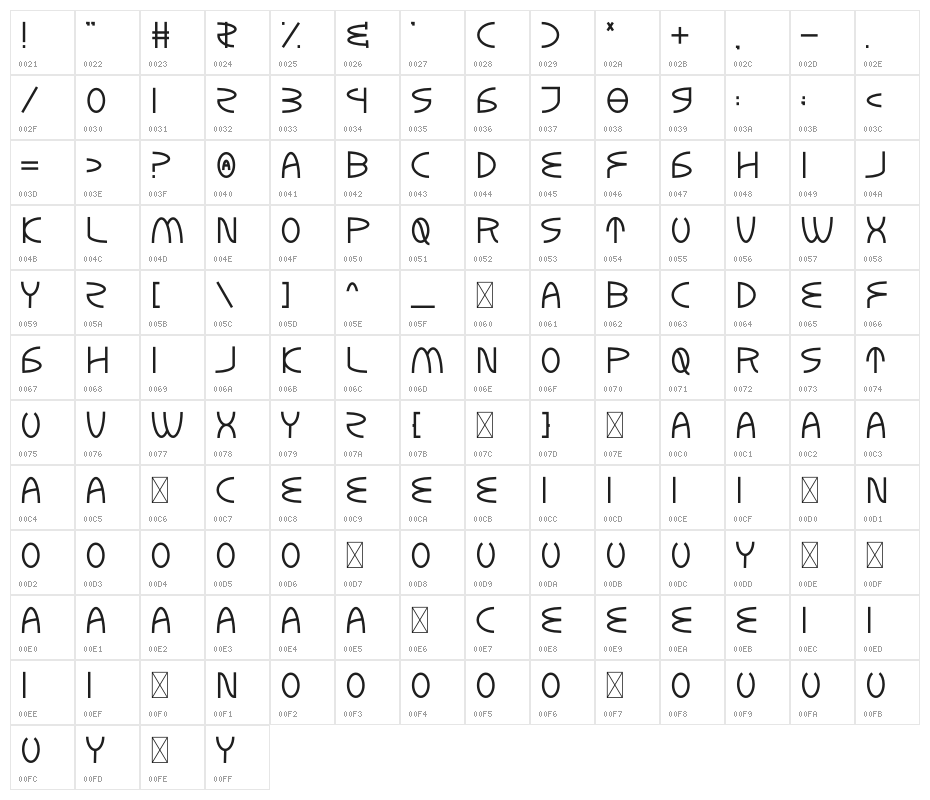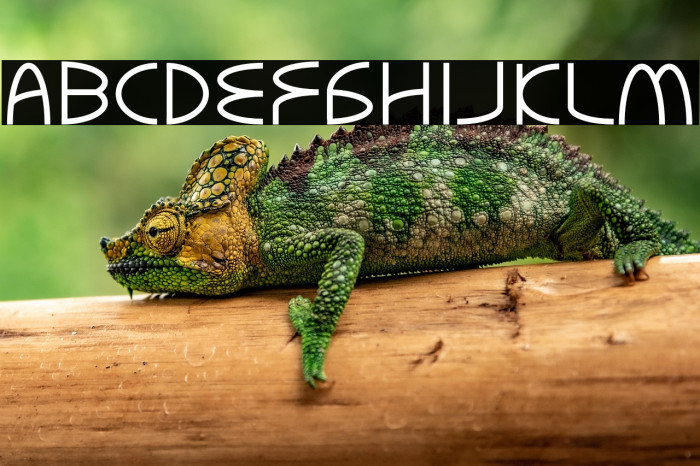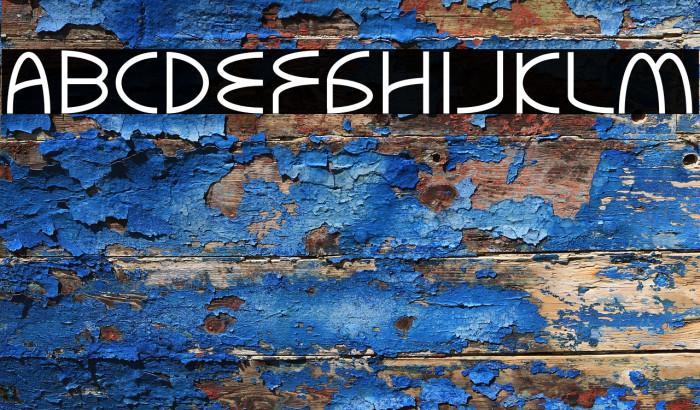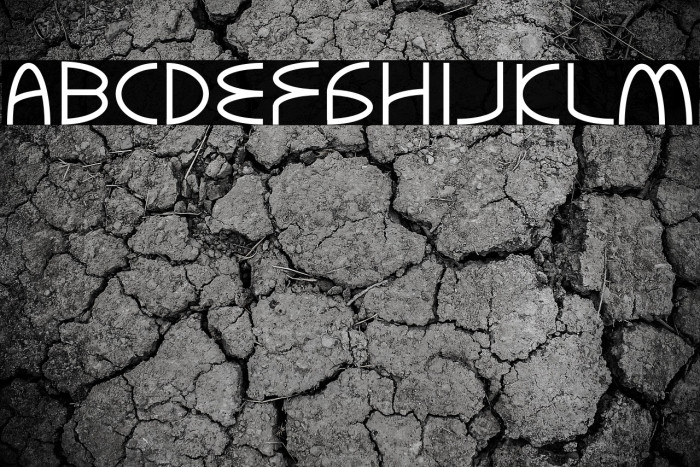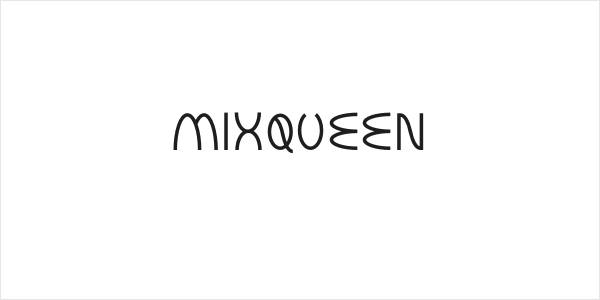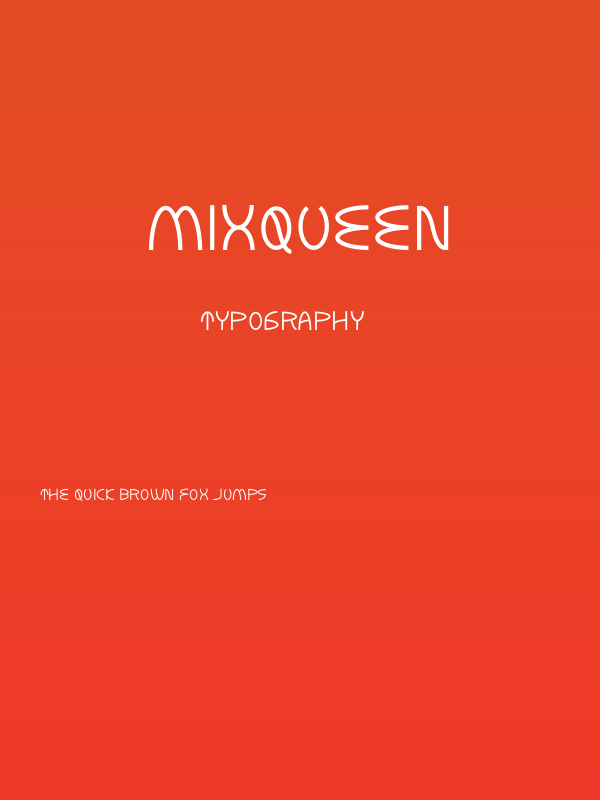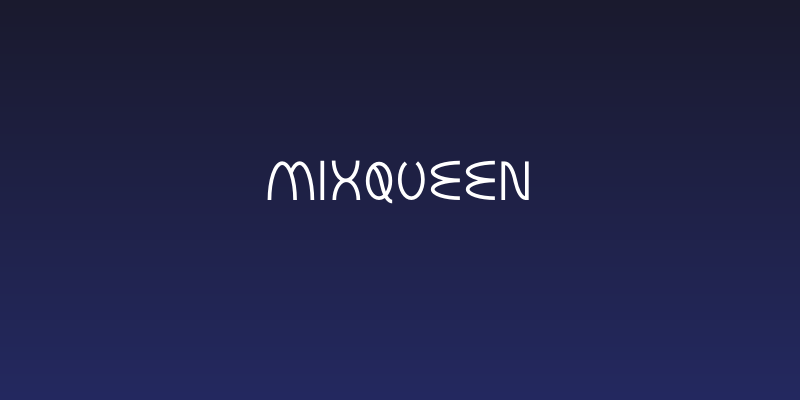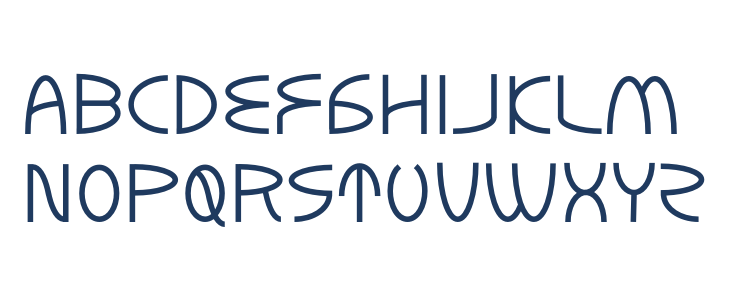
Mixqueen Font
Mixqueen Description
This font features a unique and modern design with a futuristic flair. The characters are crafted with a distinct curvature, giving them a sleek and dynamic appearance. The uppercase letters exhibit a consistent height and width, while the lowercase letters maintain a similar style, ensuring uniformity across the typeface. The numerals are designed to complement the alphabet, with a similar curvature and style. Special characters are included, maintaining the overall aesthetic. This font is ideal for projects that require a contemporary and innovative look.
| Use Case | Logos, Headlines, Posters |
| Proposed Projects | Ideal for tech branding, sci-fi themed designs, and modern advertising. |